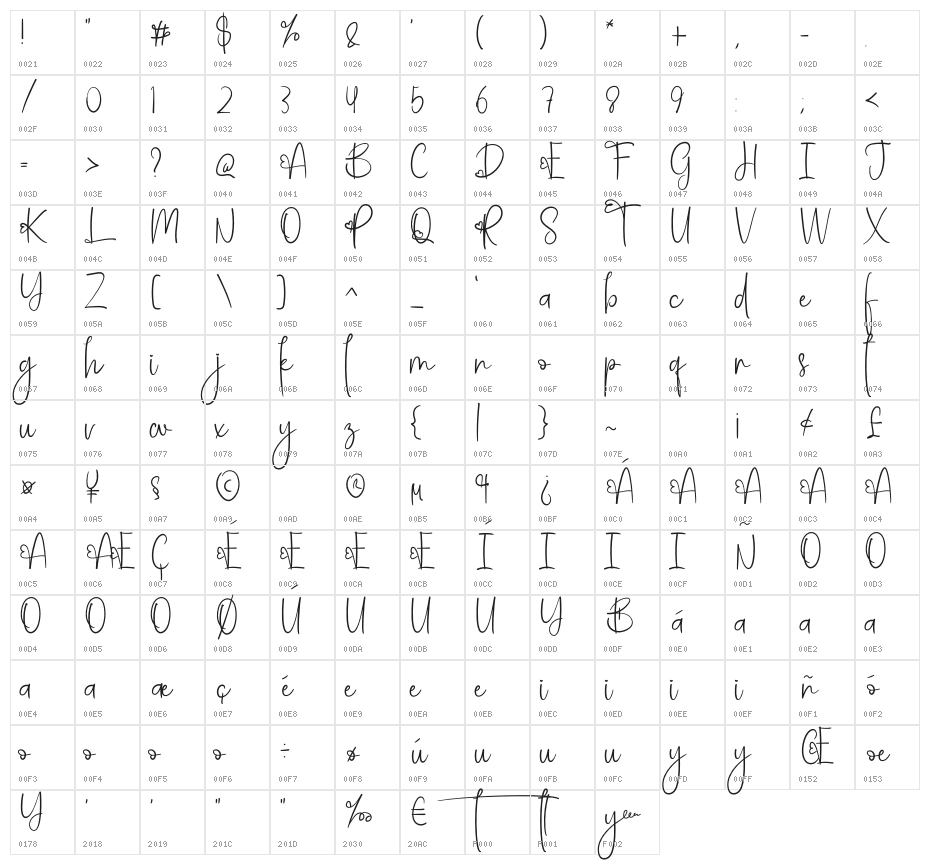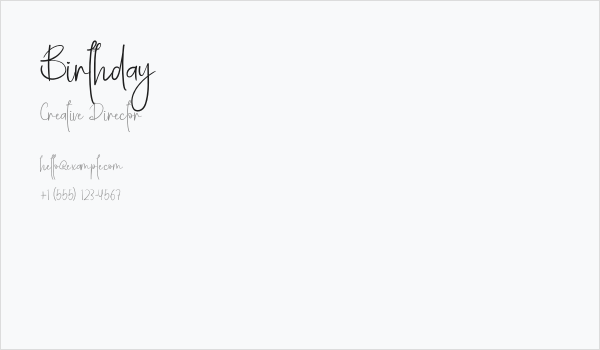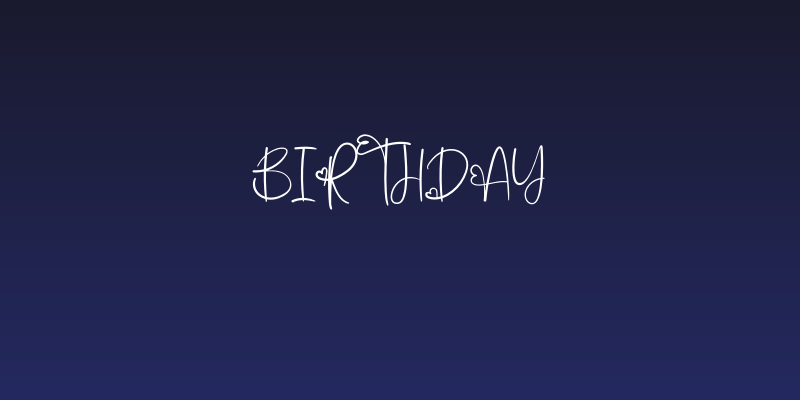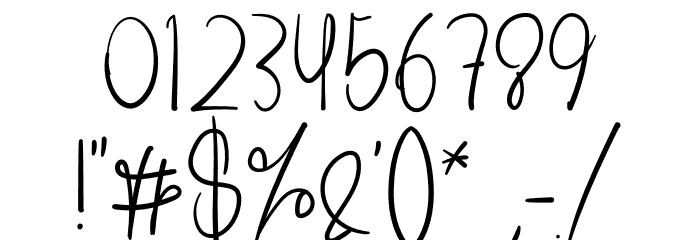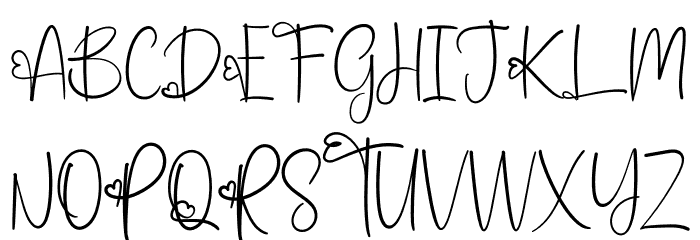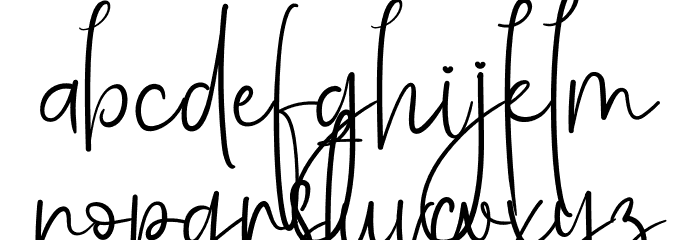
Birthday Font
Birthday Description
This font features a playful and whimsical handwritten style, characterized by its flowing lines and heart-shaped embellishments on certain letters. The uppercase letters are tall and slender, with a consistent stroke width that gives a sense of elegance and charm. The lowercase letters maintain the same playful aesthetic, with some letters extending below the baseline, adding to the font's dynamic appearance. Numbers and special characters are crafted with the same attention to detail, ensuring a cohesive look across all characters. This font's unique style makes it stand out, perfect for creative and informal projects.
| Proposed Projects | Ideal for greeting cards, invitations, personal branding, and creative projects. |